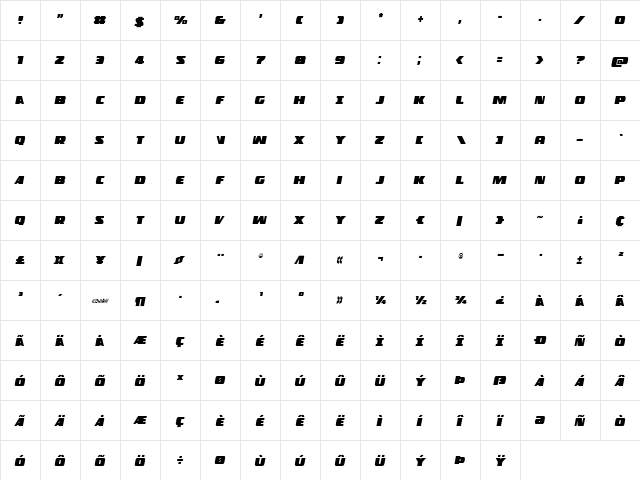
Police Cruiser Condensed Italic Font Preview
Design Context for Police Cruiser Condensed Italic Typeface
Police Cruiser Condensed Italic offers clean, dependable letterforms without strong stylistic allegiance, making it a practical choice for designers who need flexibility. The slanted form adds forward momentum and visual energy. Its narrow stance lets it pack a punch even in space-constrained designs.
Pro Tip: Use Police Cruiser Condensed Italic for emphasis, pull quotes, and subheadings where its slanted energy can add rhythm to the layout.